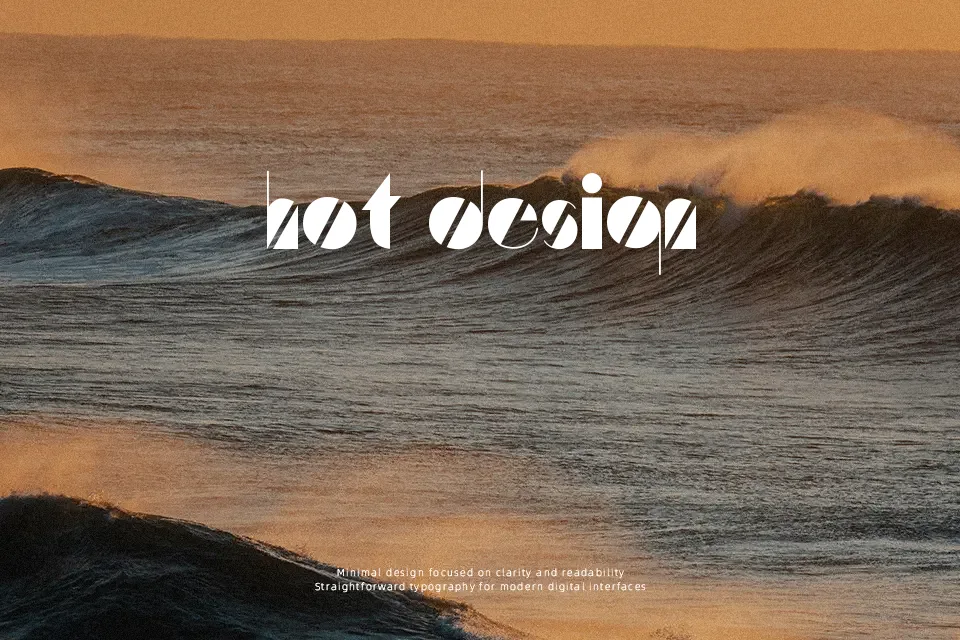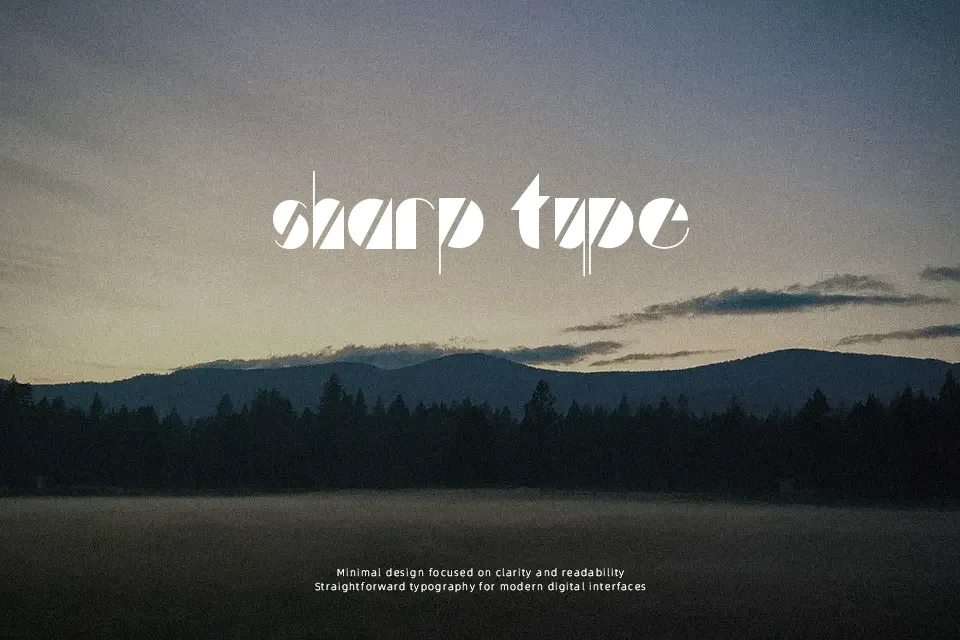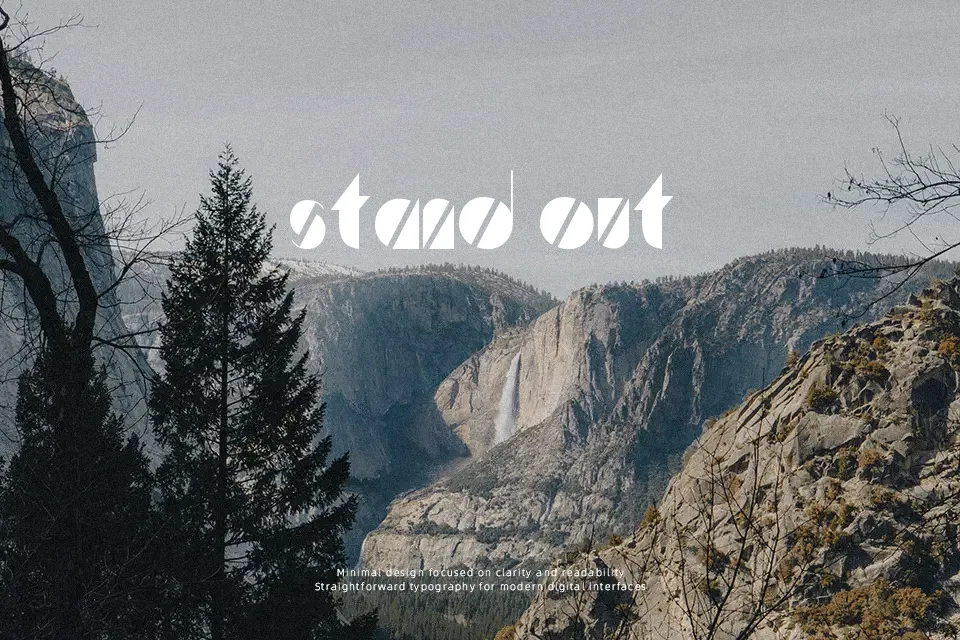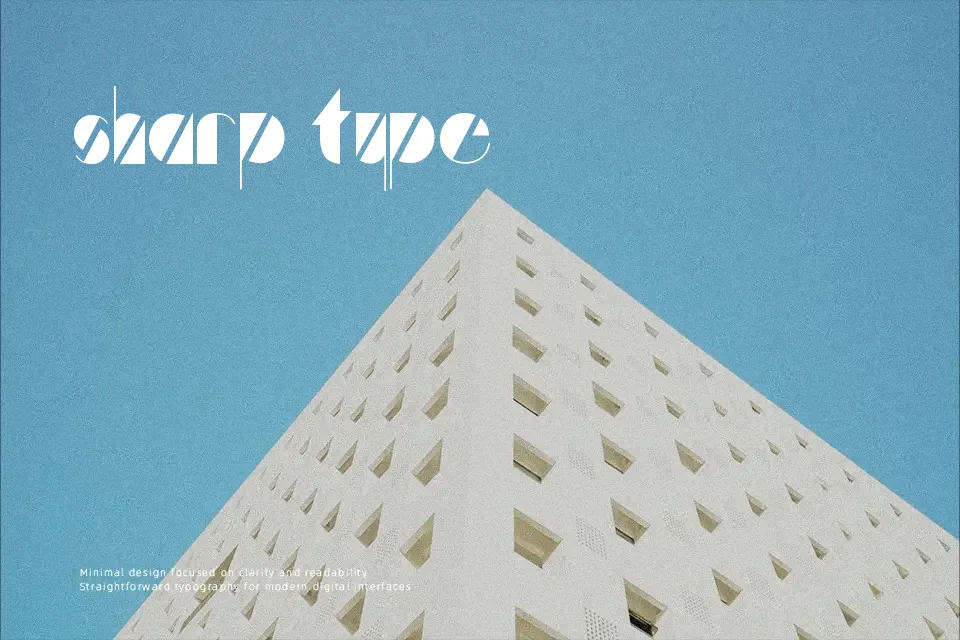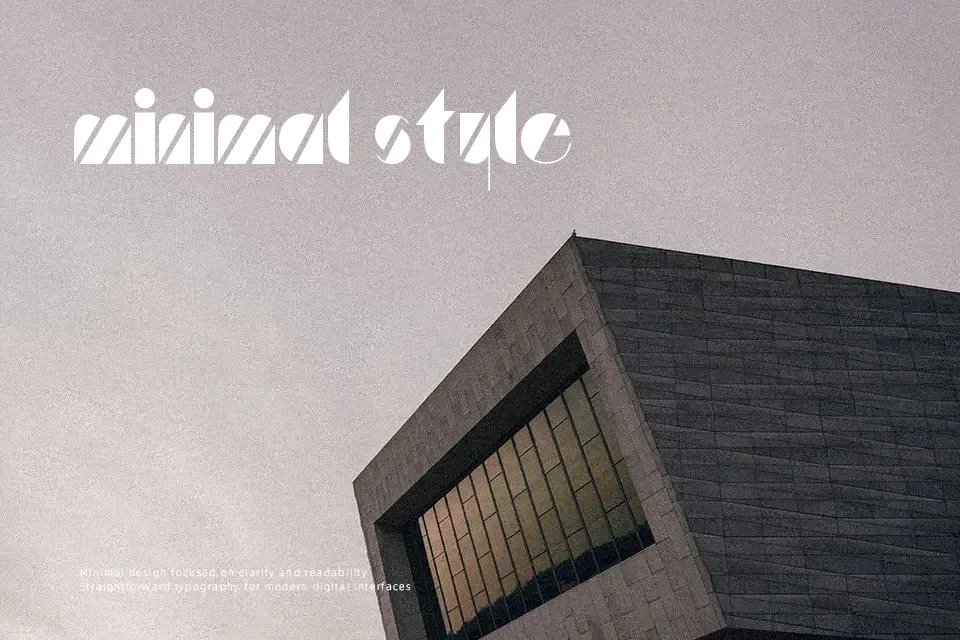
Artistica Font
Designed by Manuel Ramos
At a glance, Artistica grabs attention through its ultra-high contrast strokes and circular letter construction with deliberate spliced cuts. Each glyph carries a stencil-like quality — filled forms broken by sharp interruptions — giving the overall impression of something between retro poster lettering and structural display art. It reads well blown up large: a book cover title, an event flyer header, or a merchandise label all suit its visual weight. The character count is limited (107 glyphs), so extended language support or special typographic characters are off the table. That constraint matters — designers who need a workhorse font for full-copy layouts will quickly hit its ceiling. Where it earns its keep is in single-word or short-phrase headline treatments where drama outranks readability.
Best For:- Retro-themed poster or flyer headlines
– Music event or festival branding headers
– Short-copy merchandise and label design
– Vintage-style logo wordmarks
Not Ideal For:- Body text or paragraph-length copy
– Digital UI where legibility at small sizes matters
– Projects requiring full extended Latin character sets
– Corporate or formal business documentation